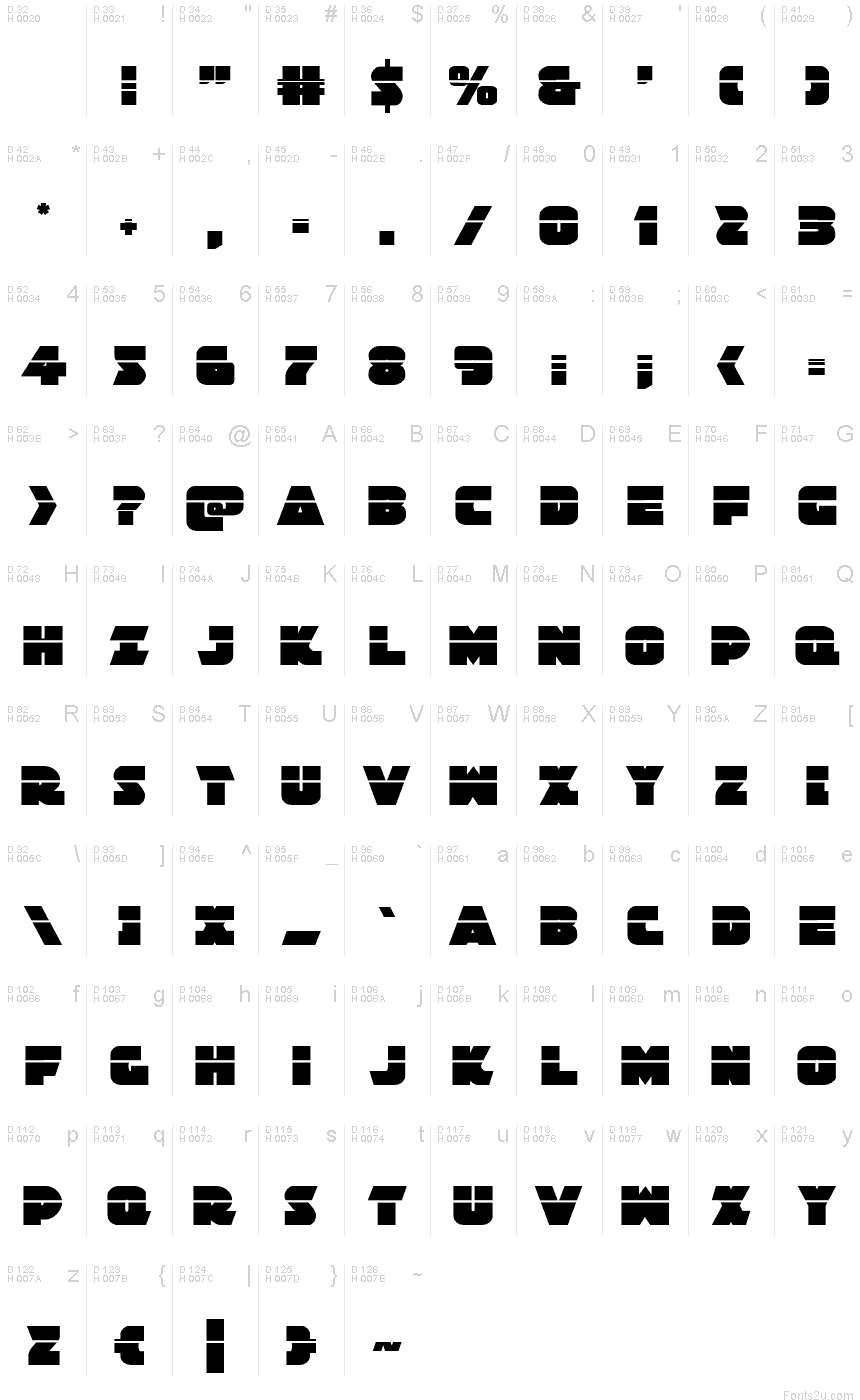
Jedi Special Forces Laser is a free futuristic display font from Iconian Fonts, shaped as broad, solid capitals with a hard geometric stance. A thin horizontal cut runs through the lettering, echoing a scanning beam across successive letters. Deep triangular notches and sharply cropped curves make the forms feel engineered rather than merely oversized.
For science-fiction game titles, the wide silhouette reads like spacecraft hardware or a military interface. Electronic music posters and esports merchandise gain the same mechanical urgency from the sliced construction. On technology packaging, the beam motif can become part of the product identity.
Jedi Special Forces Laser